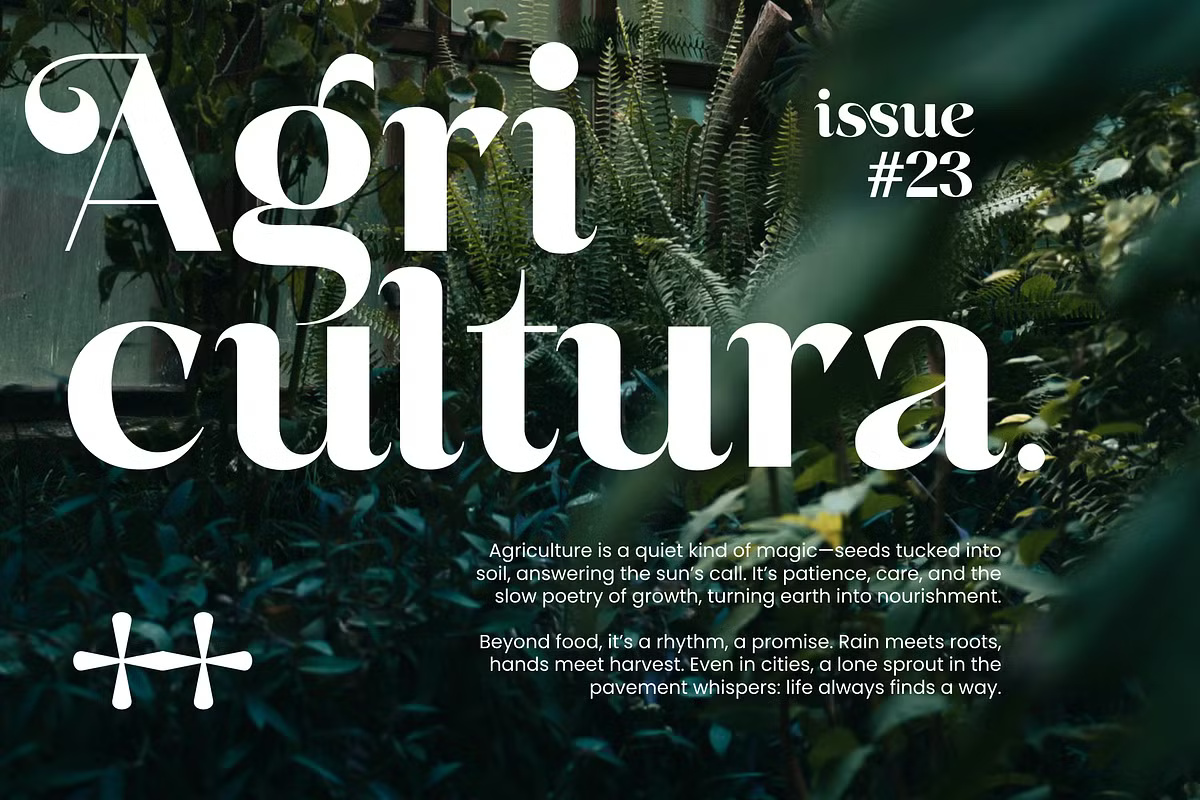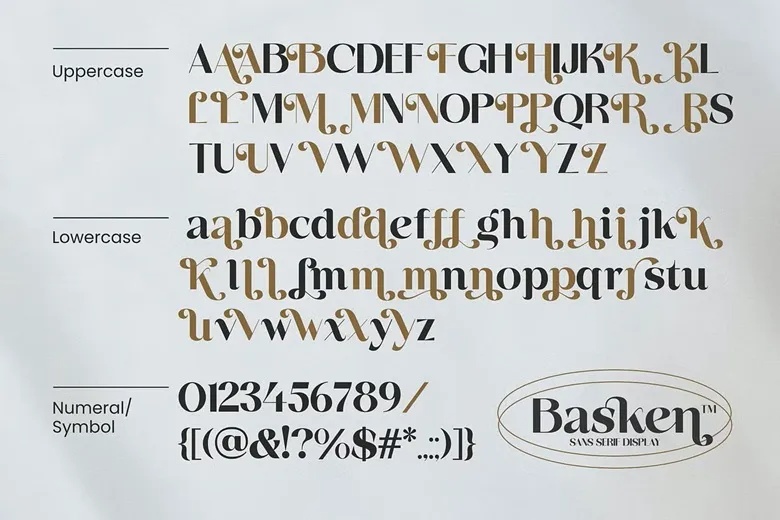
Basken Font
Basken Typeface offers a modern sans-serif design, featuring a comprehensive OpenType library that includes a variety of alternate characters and ligatures. This versatility allows users to choose from both uppercase and lowercase forms, making it an ideal choice for crafting an upscale, elegant presentation. Perfect for a wide range of applications, Basken is great for branding projects, logo design, clothing branding, packaging, magazine and book titles, advertising, t-shirts, postcards, and much more.
Basken Sans Serif Font